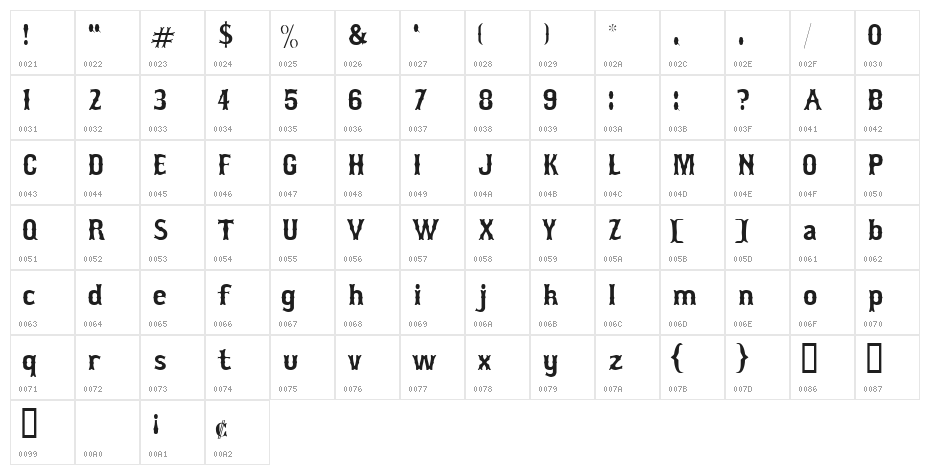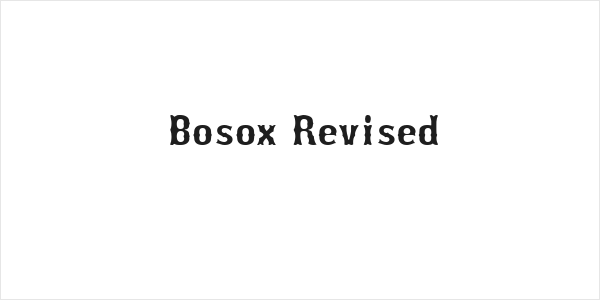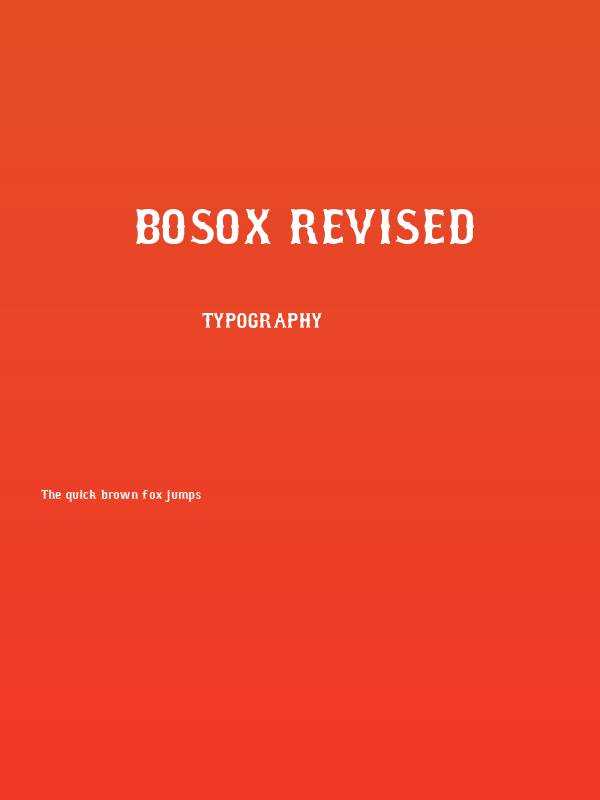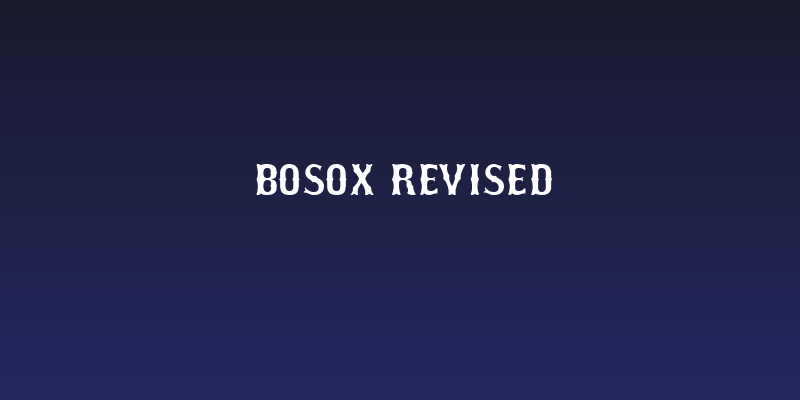
Bosox Revised Font
Bosox Revised Description
This font features a bold and distinctive style with a vintage flair, characterized by its thick, rounded serifs and slightly condensed letterforms. The uppercase letters are robust and commanding, while the lowercase letters maintain a consistent weight, providing a harmonious balance. The numbers are equally bold, ensuring visibility and impact. Special characters are uniquely styled, adding to the font's overall decorative appeal. The font's design evokes a sense of nostalgia, reminiscent of classic sports or collegiate themes, making it ideal for projects that require a touch of retro charm.
| Proposed Projects | Ideal for sports team branding, retro-themed posters, vintage apparel designs, and logo creation. |